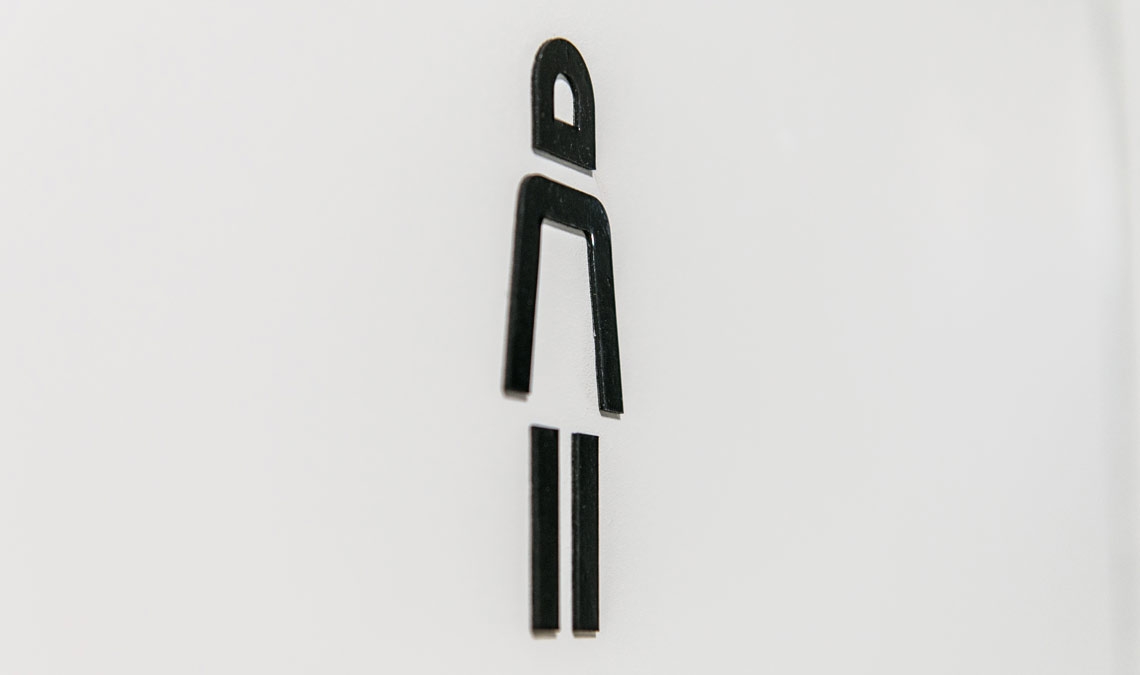
Signage for Fondazione Feltrinelli
LFT Iro Sans in use in the signage for Fondazione Giangiacomo Feltrinelli.
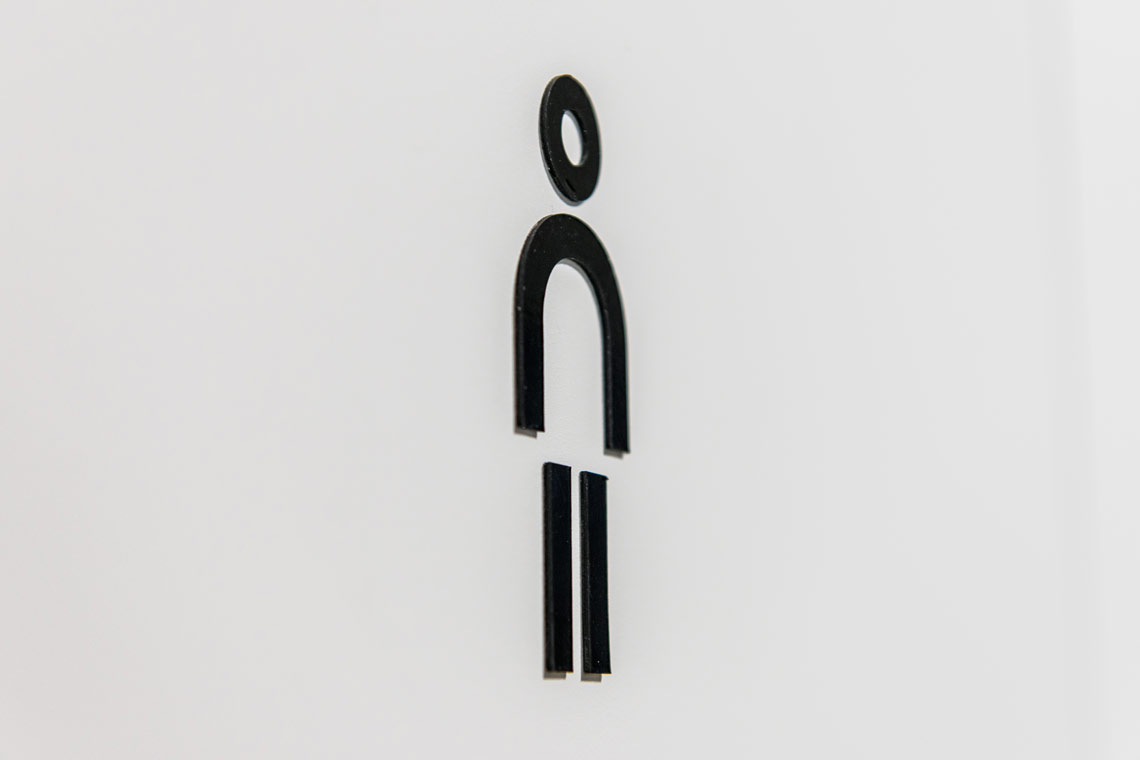
The Fondazione Giangiacomo Feltrinelli, a Milan-based centre for research and documentation in the fields of politics, economics, and social sciences, moved to their new headquarters in 2016.
The overall wayfinding project was developed by the architectural agency Herzog & de Meuron with the aim of becoming a cultural hub in the city of Milan. The stretegy and design agency Leftloft were also responsible for creating the new building’s signage.
For this they used icons from LFT Iro Sans, which were made specifically for wayfinding, clarity, and tonal ambience.